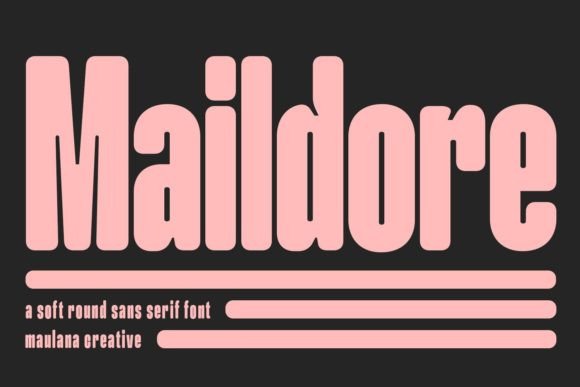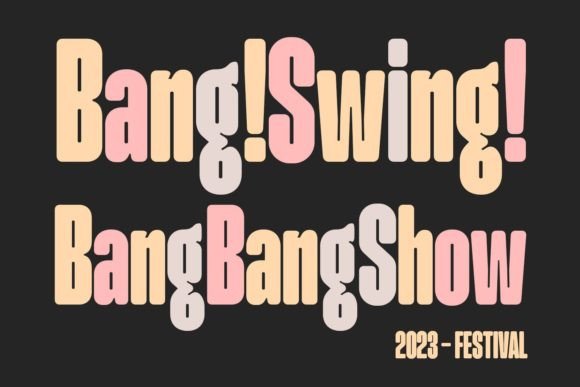
Maildore  Font
Maildore Font
Maildore is a soft round sans serif display font. With regular round edges stroke, fun character with a bit of ligature. To give you extra creative work. This font is good for logo design, Social media, Movie Titles, Books Titles, short text even long text letters, and good for your secondary text font with sans or serif. Make stunning work with Maildore font.